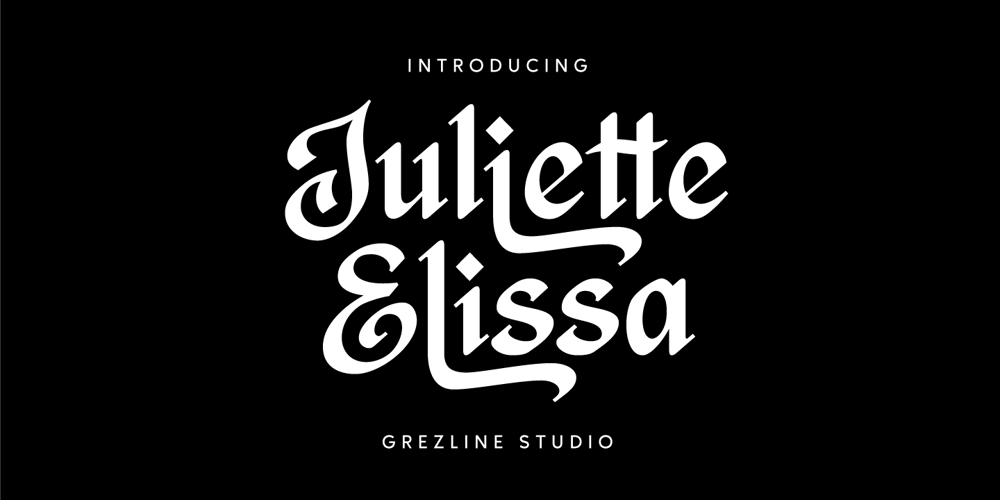
Juliette Elissa
Juliette Elissa font
Juliette Elissa Font Family was designed by Akhmad Reza Fauzi and published by Grezline Studio. Juliette Elissa contains 1 styles and family package options. Juliette Elissa is a blackletter font with classic appearance and elegance charms. You can use this font to make a vintage logo for branding, typography design, magazine or book cover, website header, product packaging, t-shirt design and many more. With its unique appearance, Juliette Elissa brings a touch of creativity to your designs. Feature :- Ligature and Alternate Glyph- Multilingual Language- Works on PC & Mac- Simple installations- Accessible in the Adobe Illustrator, Adobe Photoshop, Adobe InDesign, even works on Microsoft Word. Thank you for your support!!Grezline Studio – Akhmad Reza Fauzi